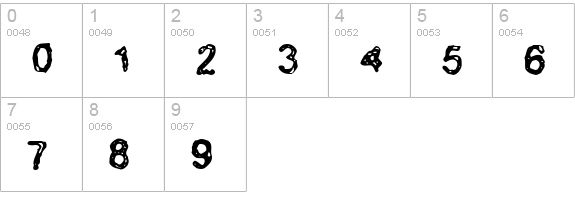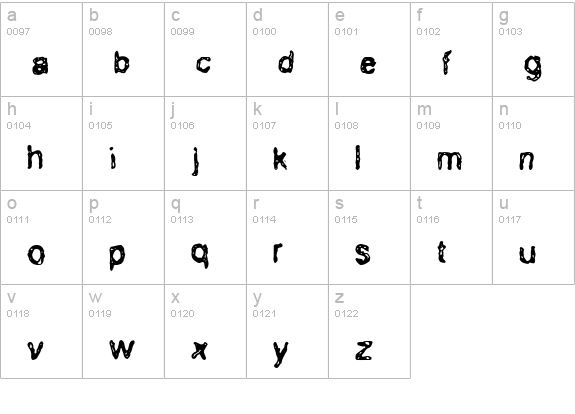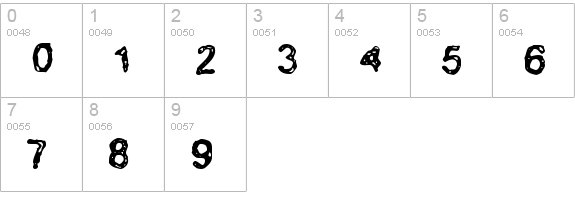
Erozion Font Details
Erozion font is a striking display typeface that exudes a sense of raw energy and edgy sophistication. Its jagged edges and bold strokes give it a distinctively modern yet timeless aesthetic, making it perfect for attention-grabbing headlines, logos, and branding projects. The unique design of Erozion font adds a dynamic and artistic touch to any design it is used in, making it a versatile choice for designers looking to make a bold statement. What sets Erozion font apart is not only its visually impactful design, but also the fact that it is available for free download at FontsMarket.com. This means that you can easily add this eye-catching font to your collection without any cost, making it a valuable asset for both personal and commercial projects. Whether you're looking to add a touch of edge to your designs or make a bold statement with your typography, Erozion font is sure to impress with its striking style and accessibility. Download it today and unleash your creativity with this powerful and expressive typeface.